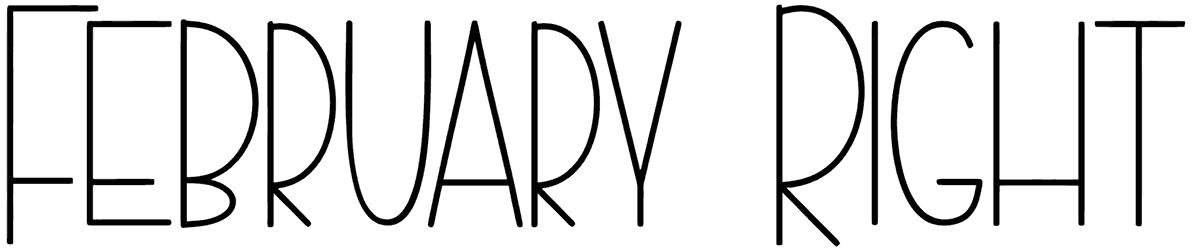
February Right Font
Who can ignore the charm of minimal and modest designs? This minimalist font, with its delicate and realistic outward, could represent the right choice to cause this mood for your coming design. February Right doesn’t suggest lowercase letters, but as a modern pickup would be a sweet choice for various projects like postcards, invitations, album covers, and more of the same.